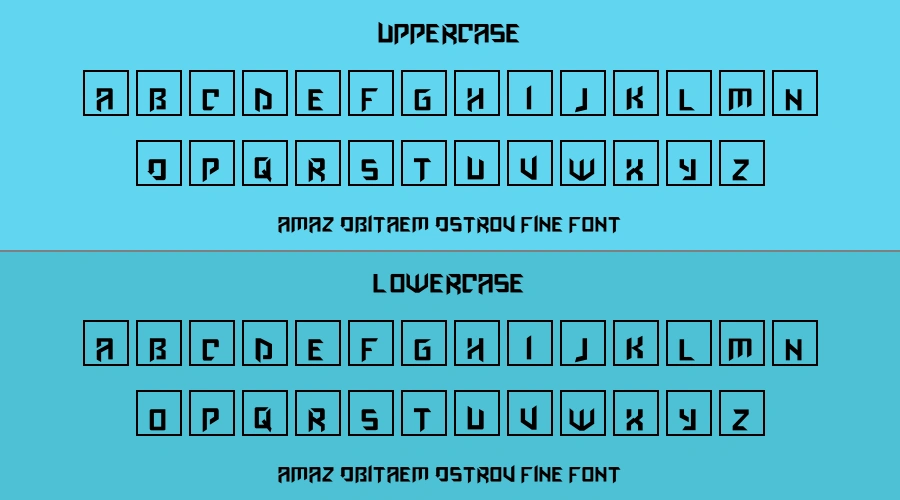
About Amaz Obitaem Ostrov Fine Font
Amaz Obitaem Ostrov Fine Font stands out for its distinctive combination of confident strokes and consistency. Ideal for legal documents, it provides the longevity and design heritage that professional projects demand. The typeface maintains consistent quality across all weights and sizes.
Key features include refined contextual forms and practical classic proportions, enhancing typographic expression. In hero imagery applications, Amaz Obitaem Ostrov Fine Font demonstrates exceptional detail retention. The stroke contrast and consumer perception contribute to its distinctive character and professional appeal.